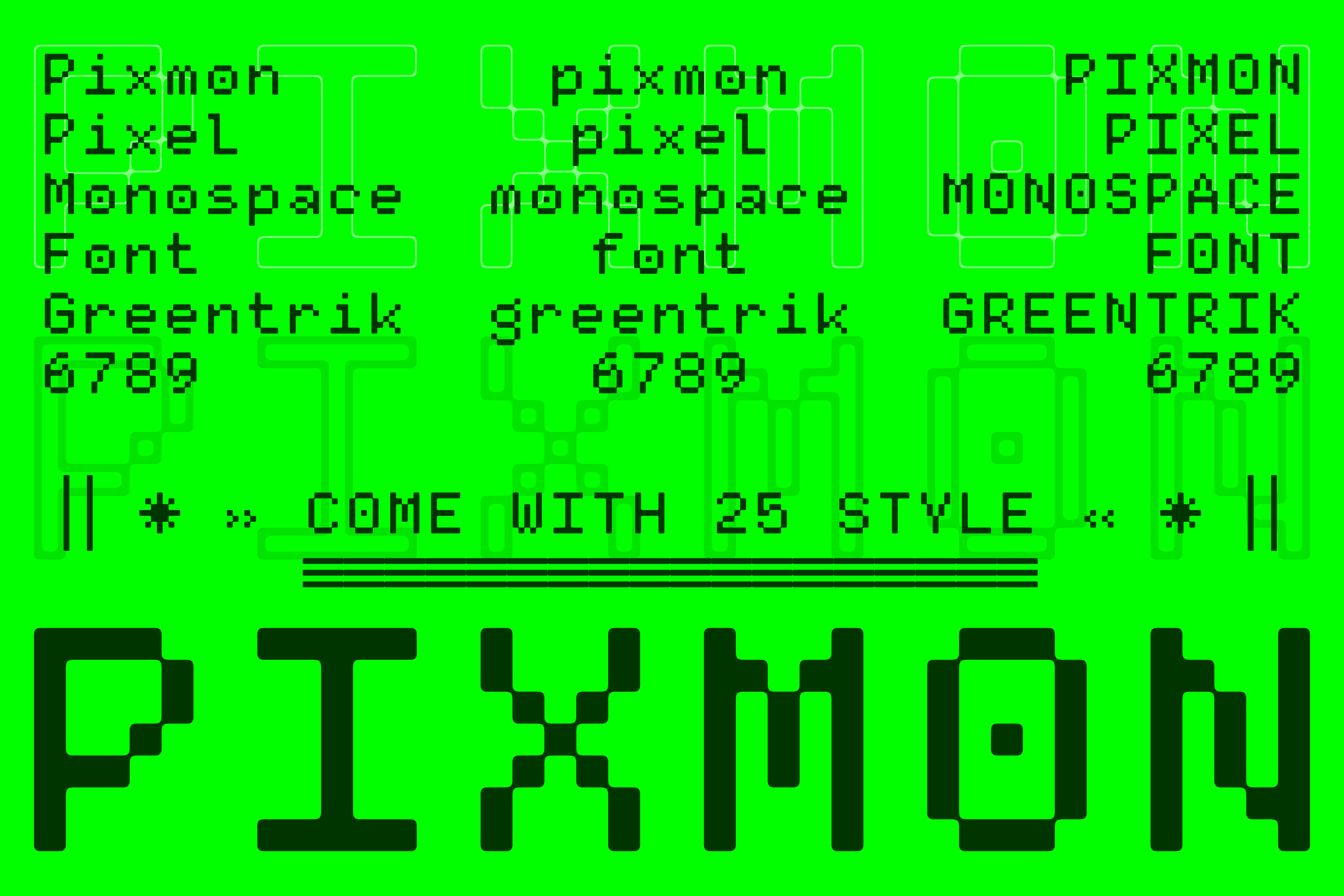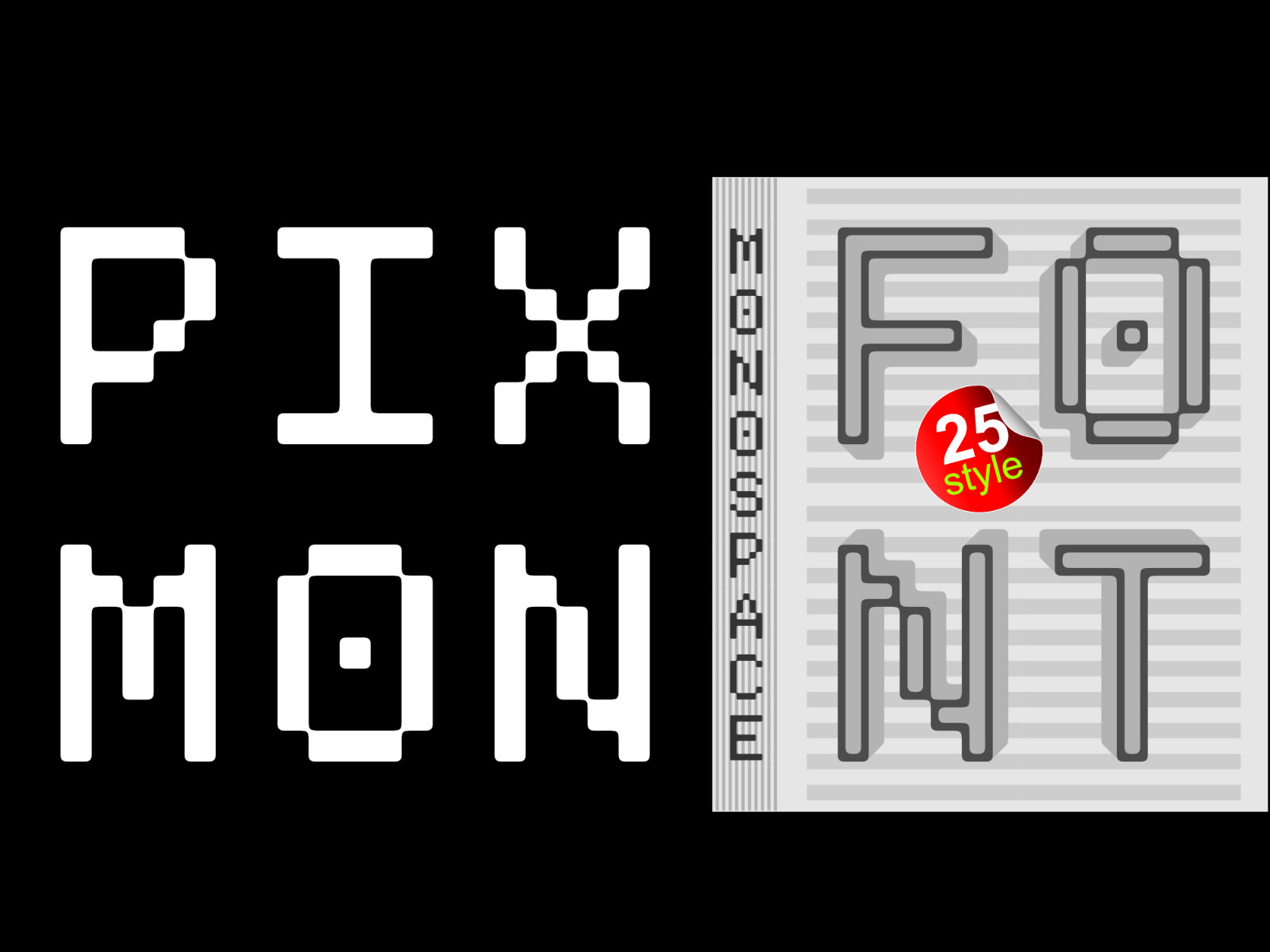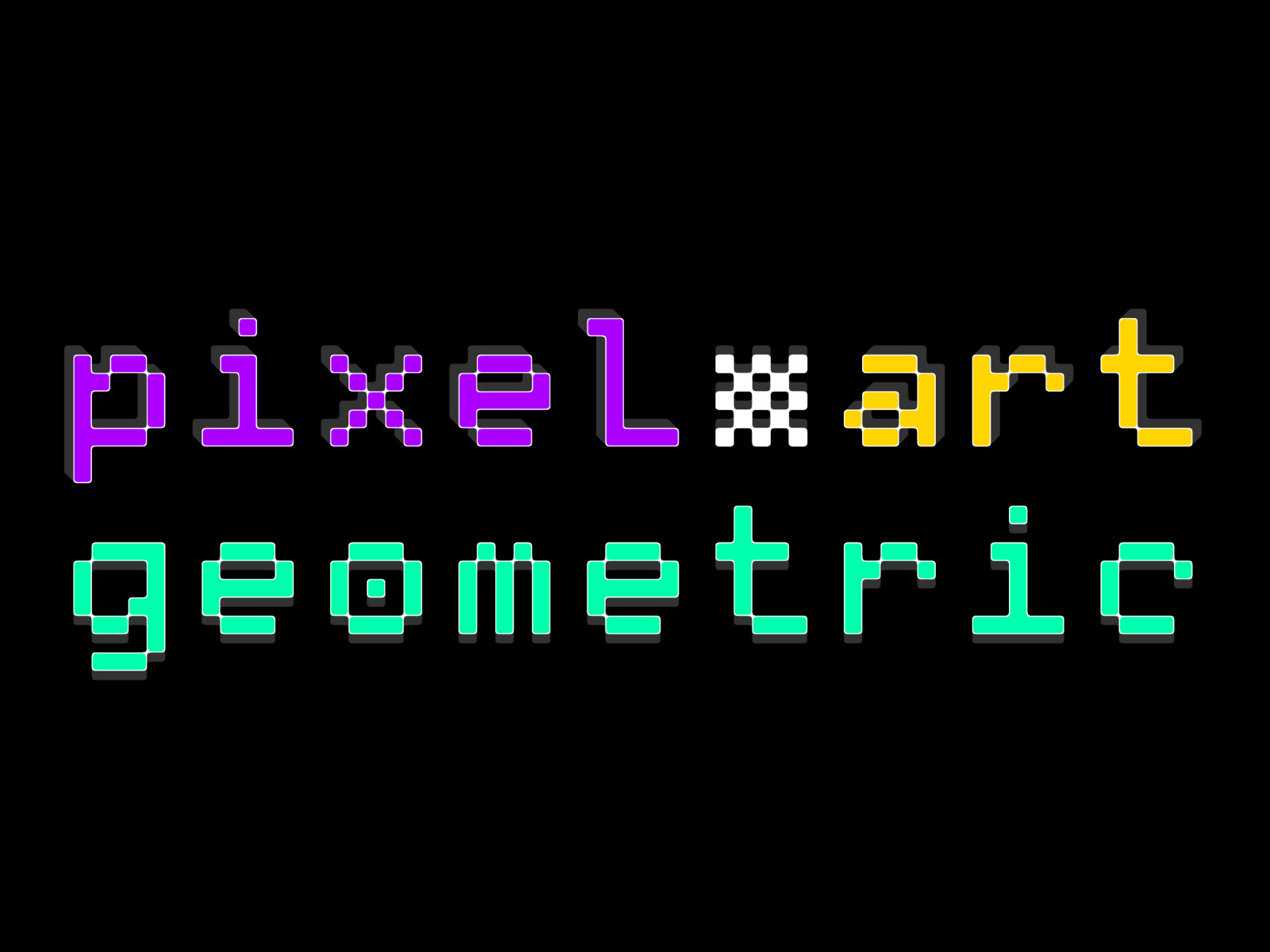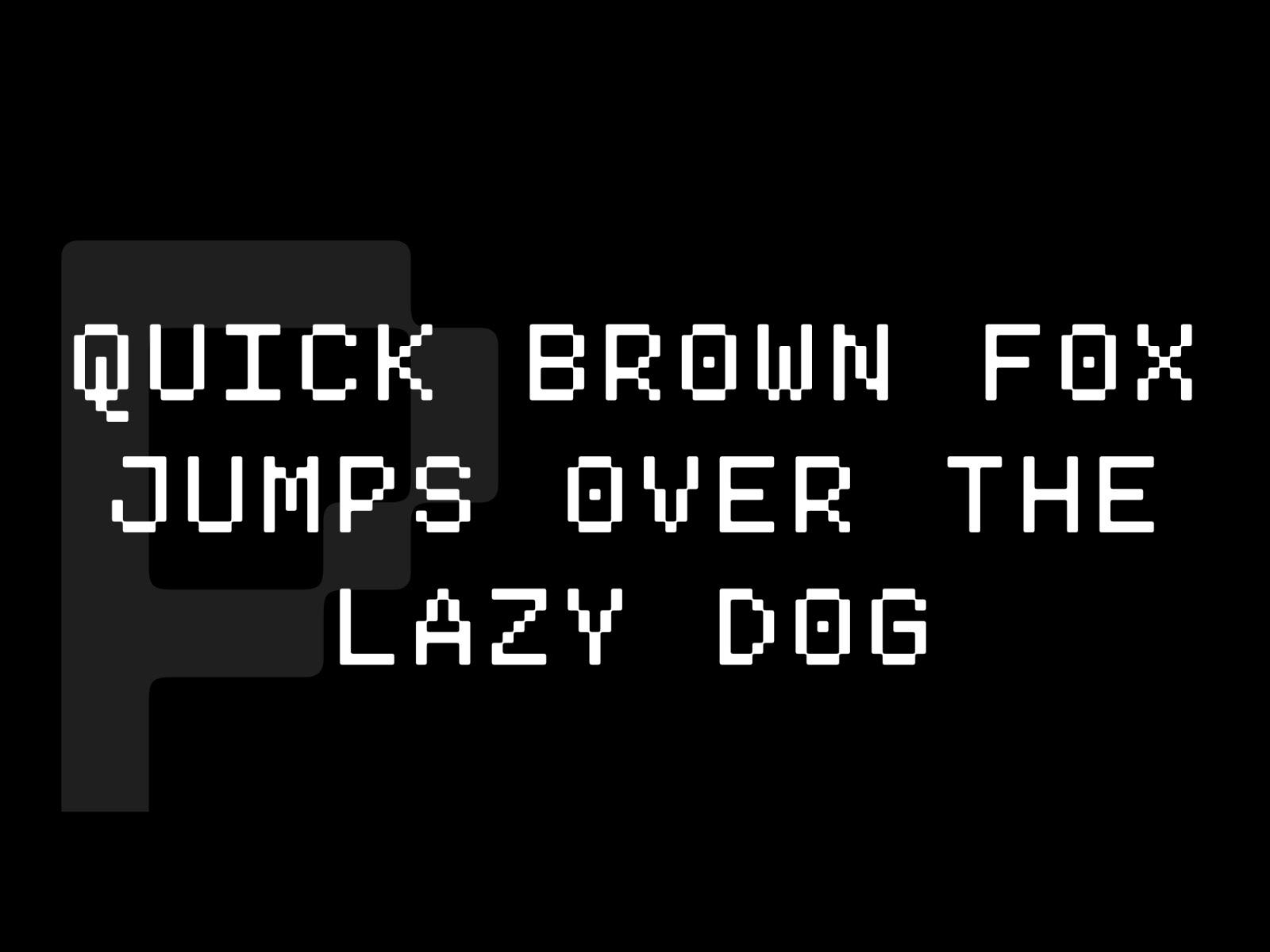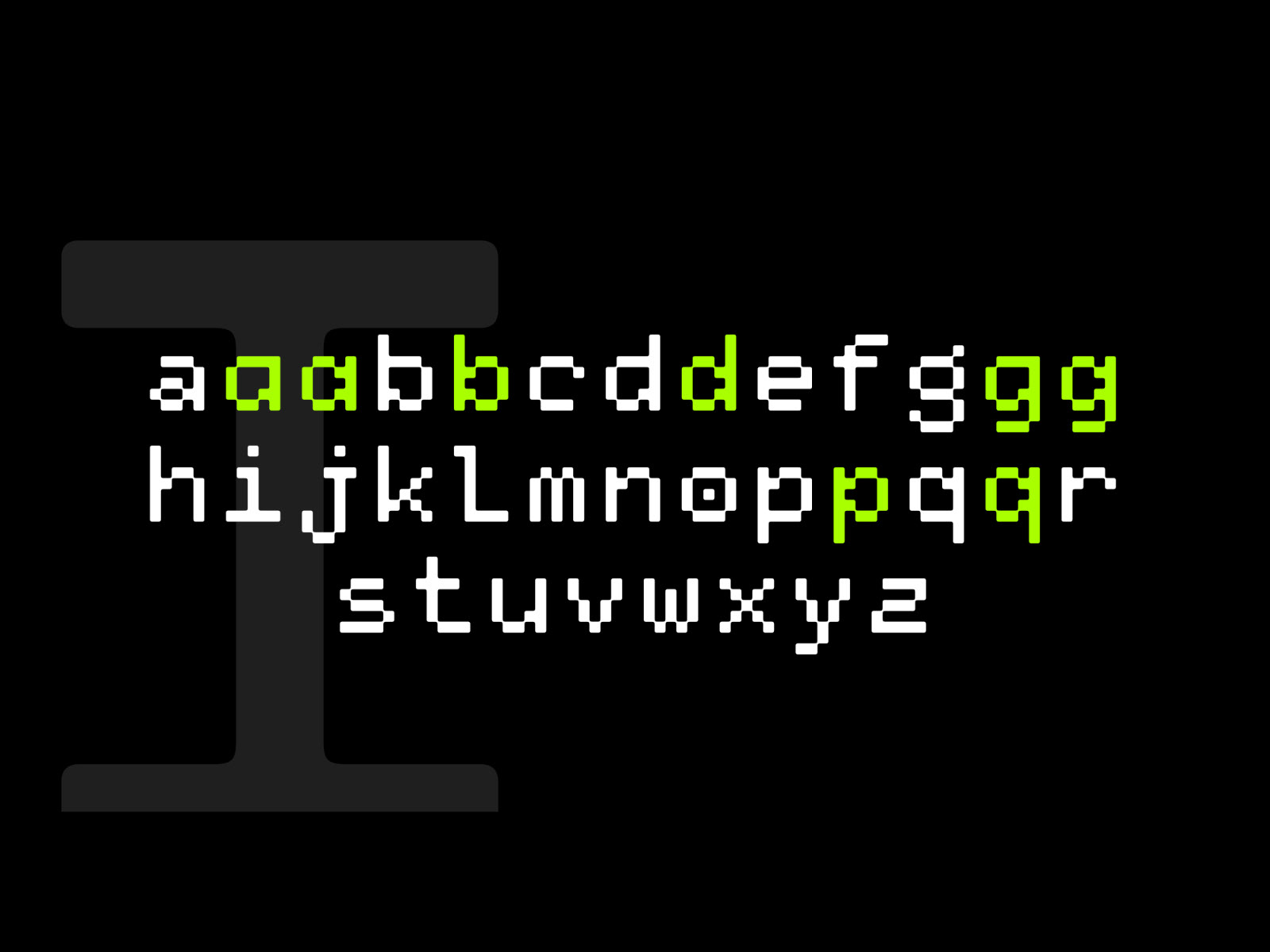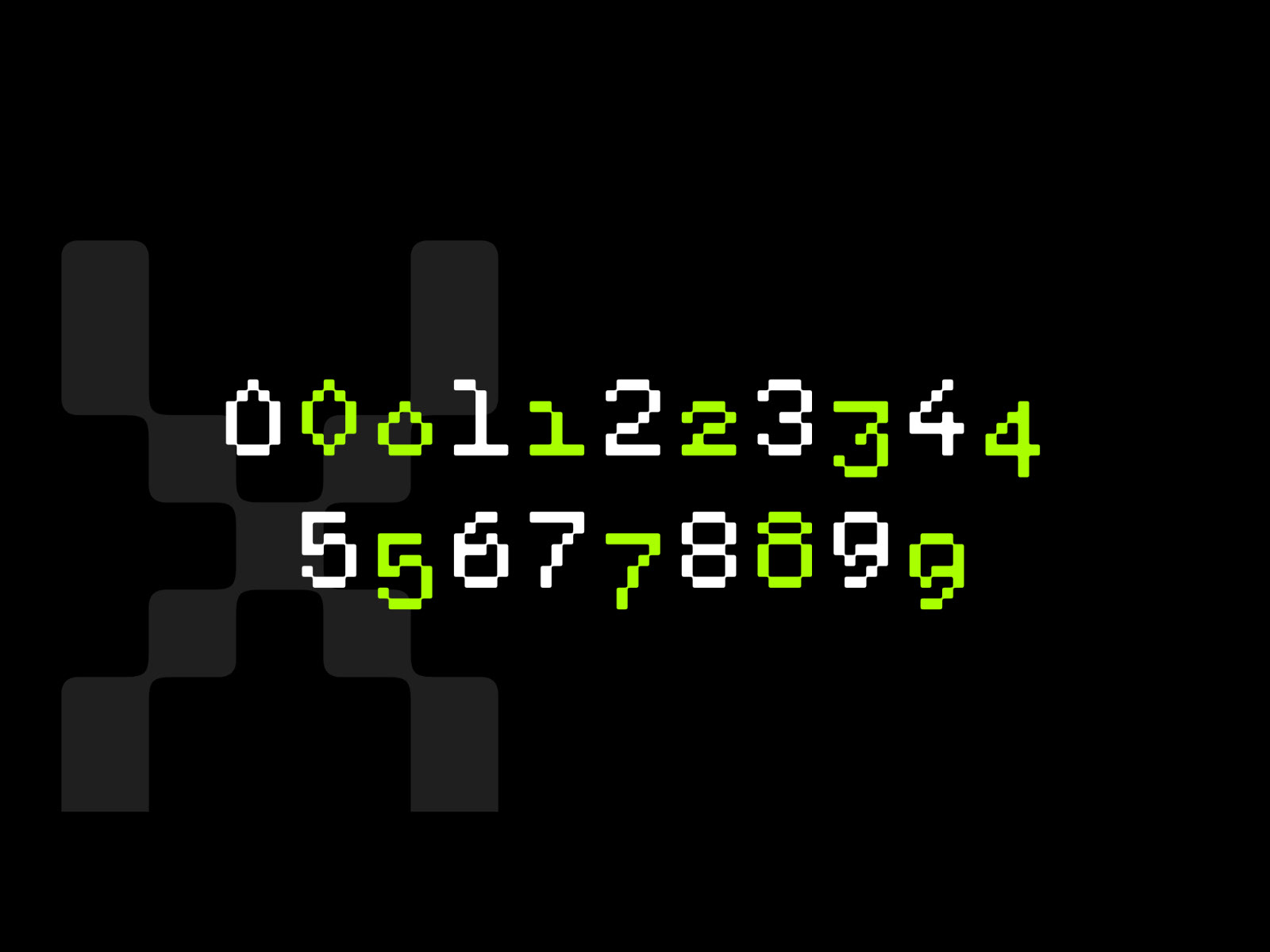
Pixmon layered monospace display font.
Bring a touch of geometric flair to your designs with the Pixmon Monospace Font.
This 25-style typeface offers a distinctive monospace display with rounded corners, perfect for adding visual interest to signs, branding, and more.
Explore the versatile styling of this unique font.